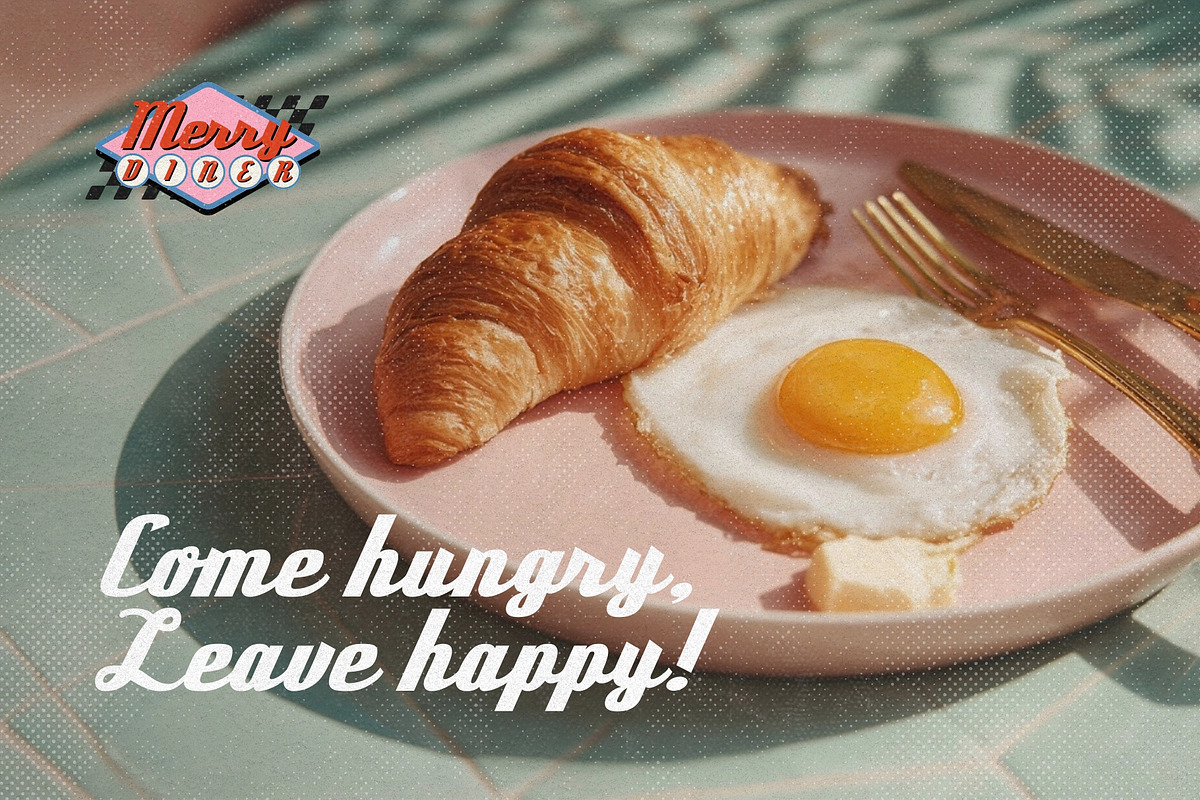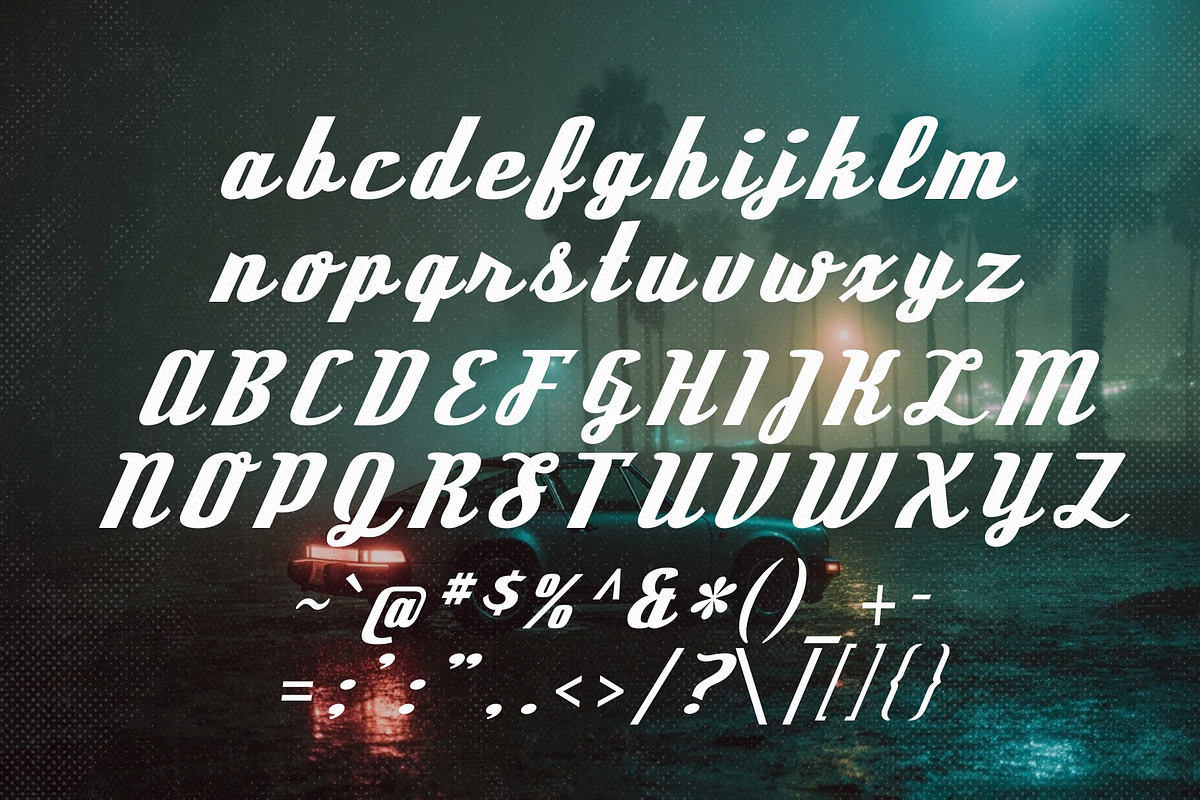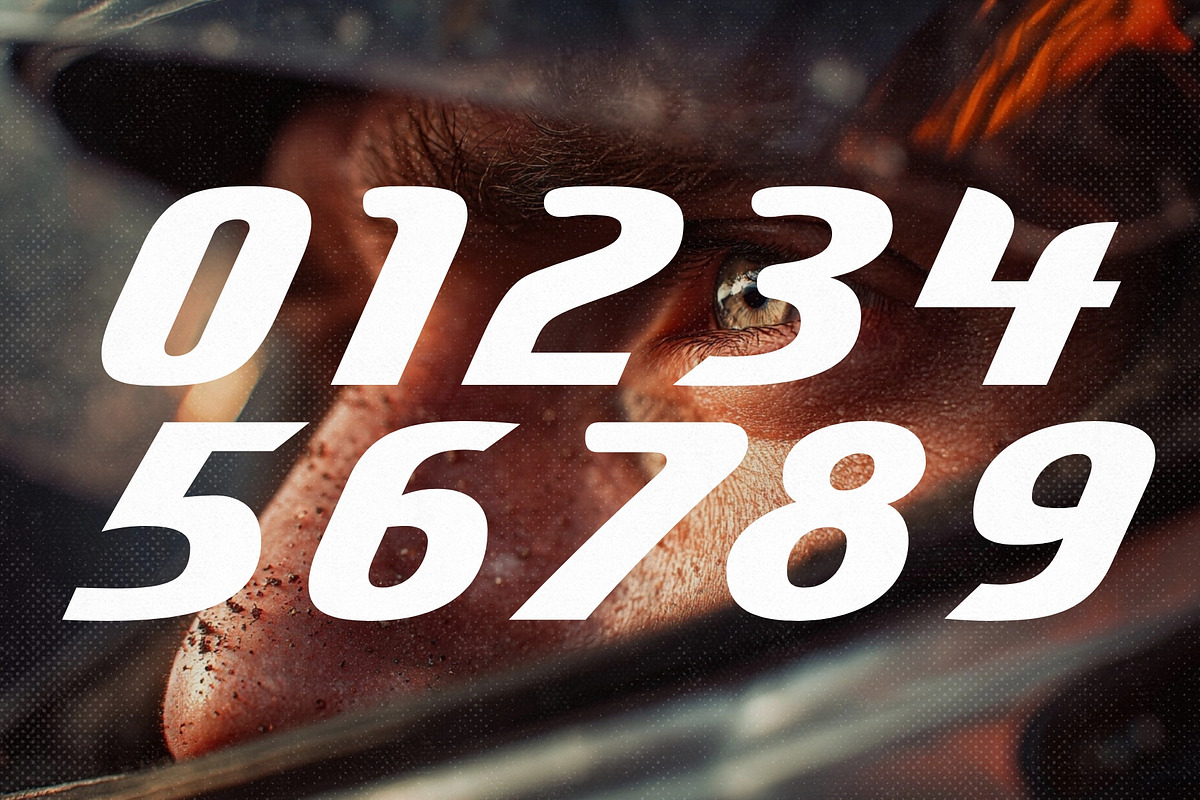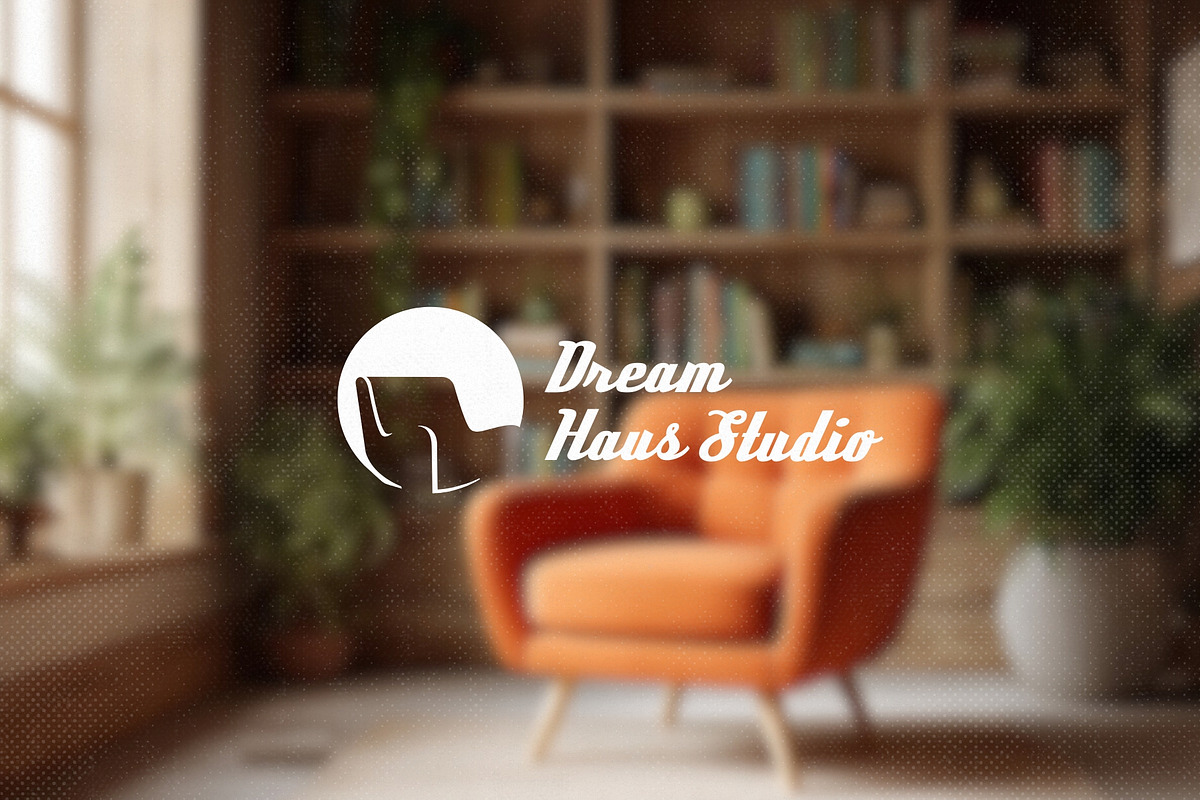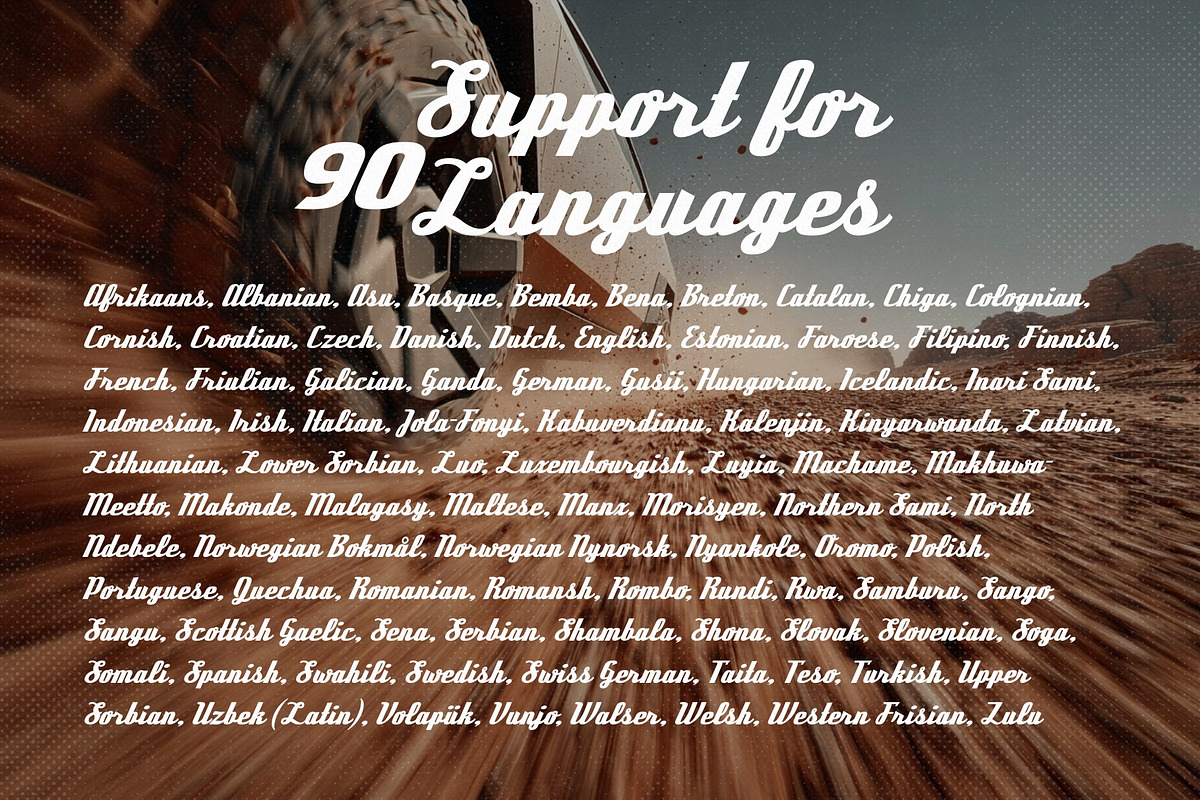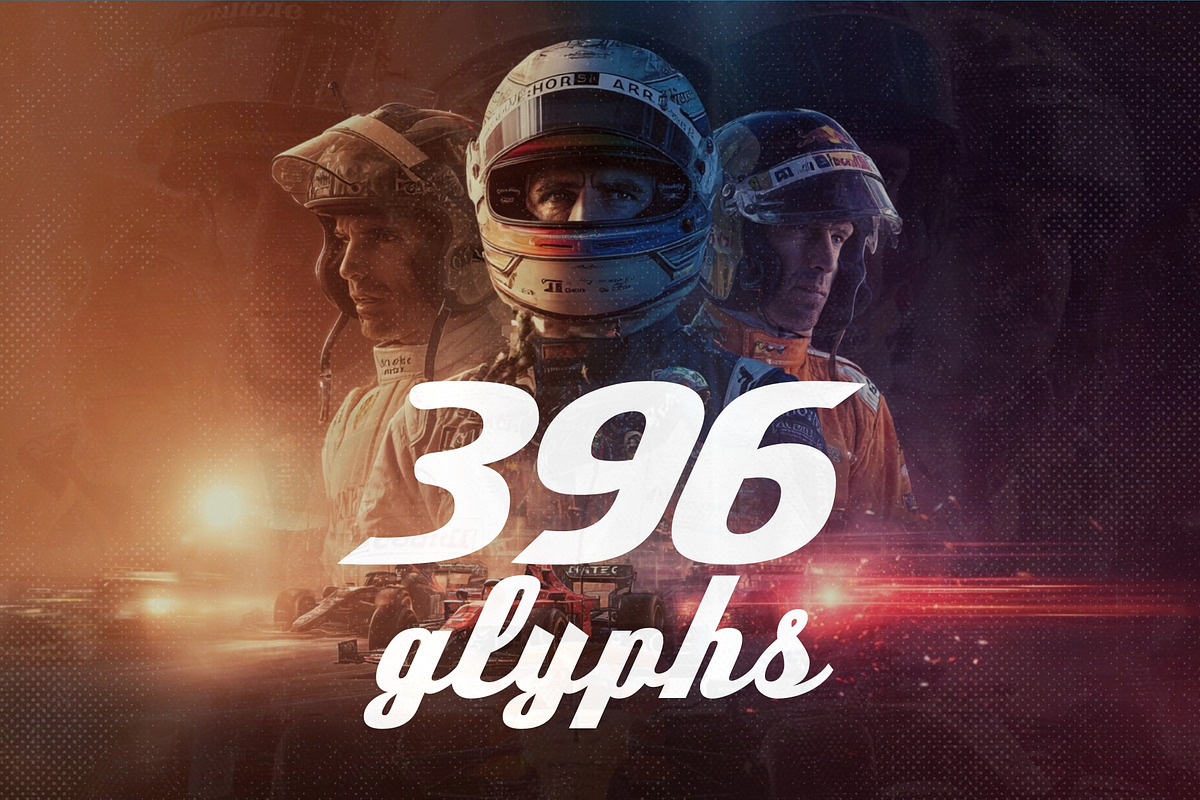
Monarch Drive Script
Cruise back to the golden age of chrome, curves, and charisma with Monarch Drive Script, a vintage-inspired script typeface that channels the spirit of 1950s–60s automotive elegance. With sweeping strokes and stylish flair, this font evokes the timeless charm of classic car emblems, drive-in diners, and retro signage.
Crafted with precision and personality, Monarch Drive Script features 396 glyphs and supports 90 languages, making it as versatile as it is nostalgic. Whether you're designing for branding, packaging, apparel, or signage, this script delivers high-octane style with smooth handling.
- Elegant retro script inspired by mid-century car logos
- Includes 396 glyphs for rich typographic expression
- Supports 90 languages for global reach
- Ideal for branding, packaging, apparel, posters, and signage
- Perfect for vintage, retro, Americana, and nostalgic themes
Monarch Drive Script is more than a typeface, it’s a design statement that turns every word into a classic ride. Whether you're revving up a logo or cruising through a headline, this font brings vintage vibes with modern versatility.